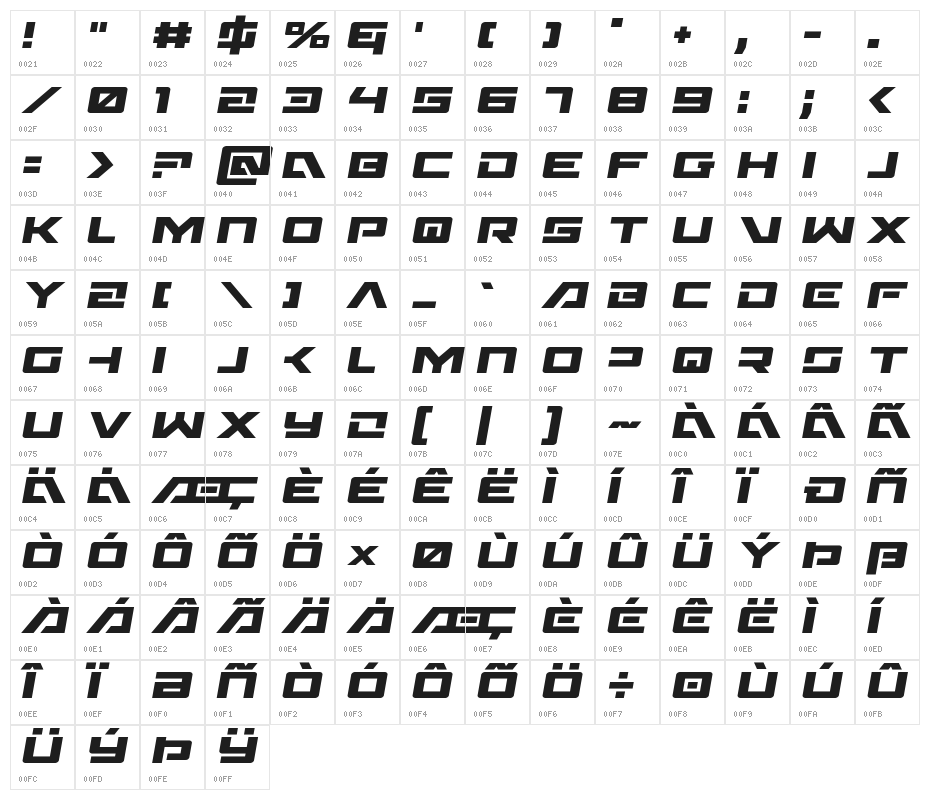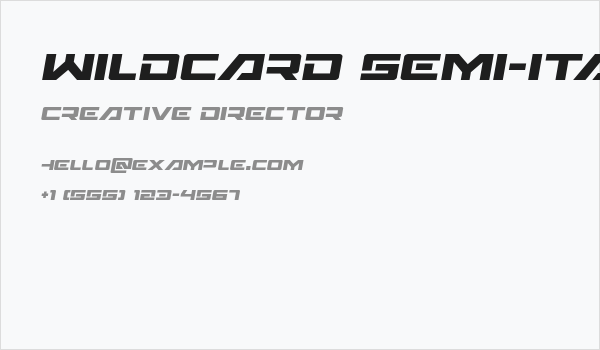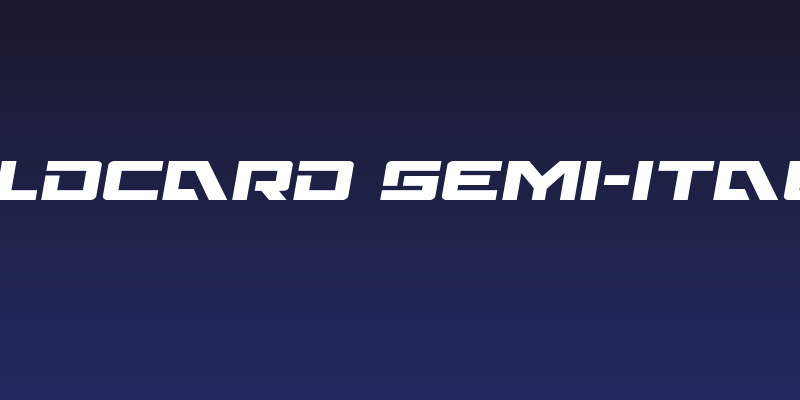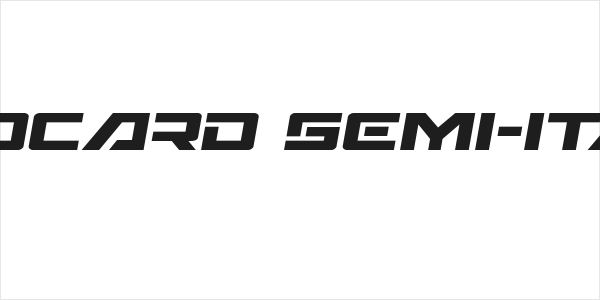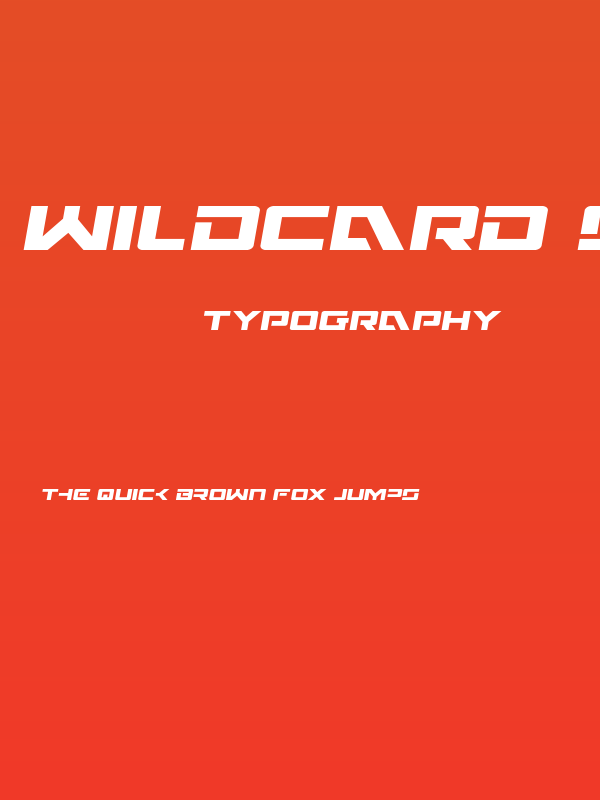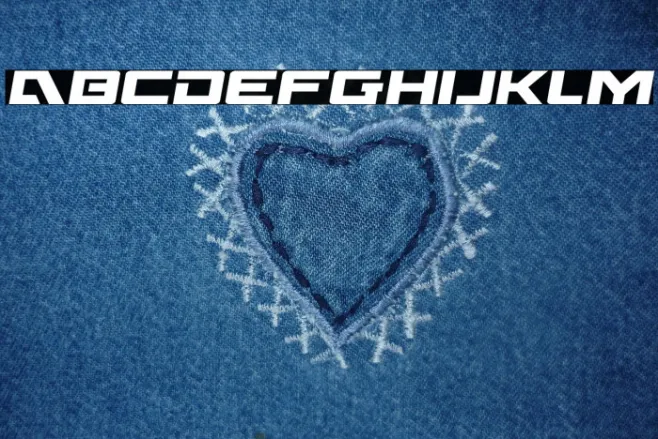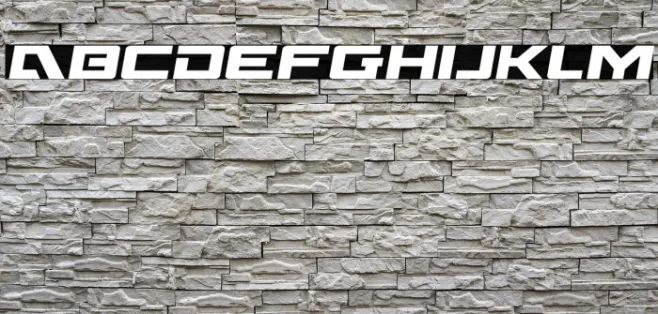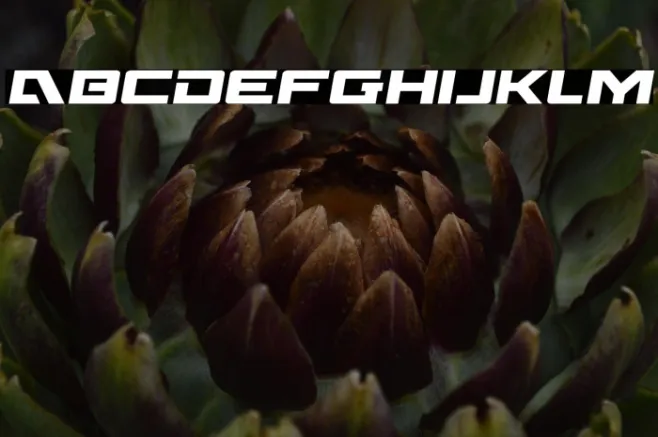
Wildcard Semi-Italic Font
Wildcard Semi-Italic Description
This font features a bold, angular design with a futuristic and dynamic appearance. The characters are slightly italicized, giving a sense of motion and speed. The uppercase letters have a strong geometric structure, while the lowercase letters maintain the same angular style, ensuring consistency across the typeface. The numbers and special characters are designed to match the overall aesthetic, with sharp edges and a modern look. The font's unique style makes it stand out, suitable for projects that require a bold and contemporary touch.
| Proposed Projects | Ideal for technology branding, video game titles, sports team logos, and sci-fi themed designs. |